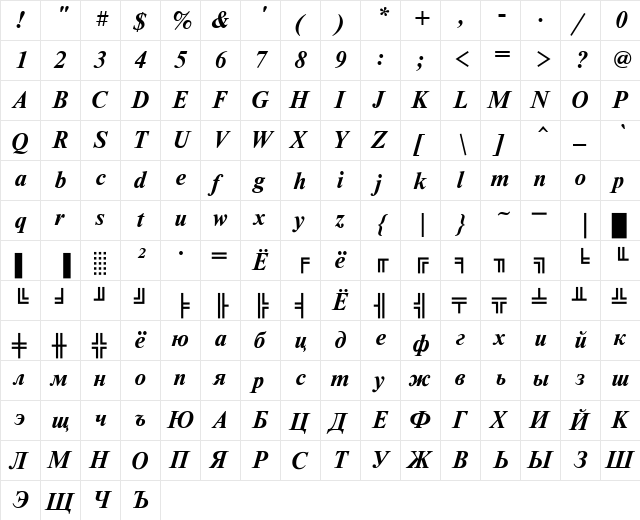
NewtonKOICTT BoldItalic Font Preview
Design Context for NewtonKOICTT Typeface
NewtonKOICTT offers clean, dependable letterforms without strong stylistic allegiance, making it a practical choice for designers who need flexibility. The dynamic lean of this cut emphasises speed and emphasis in any layout. The heavy weight commands attention and anchors typographic hierarchies.
Pro Tip: Try NewtonKOICTT for annotation and caption copy alongside an upright companion — the contrast in angle creates a dynamic but ordered typographic system.